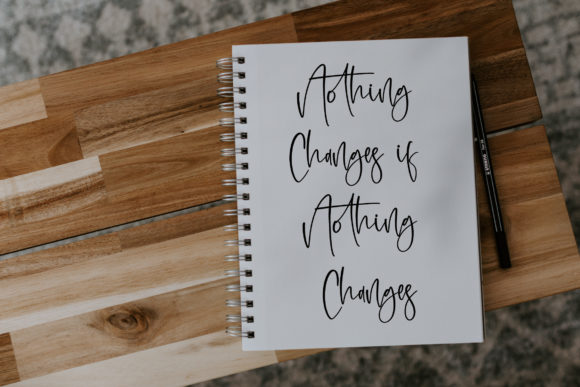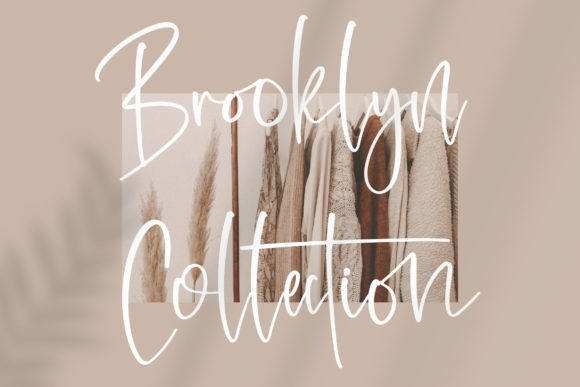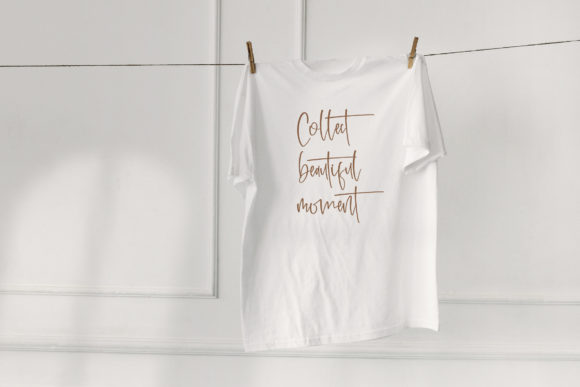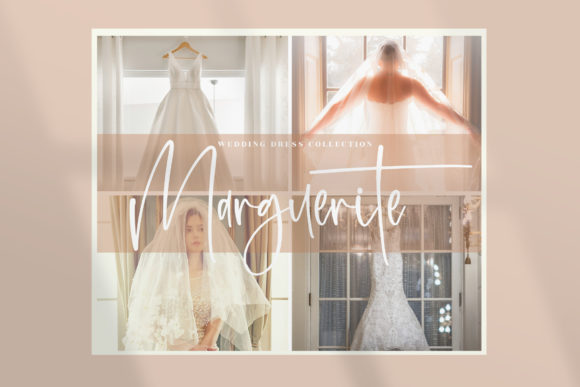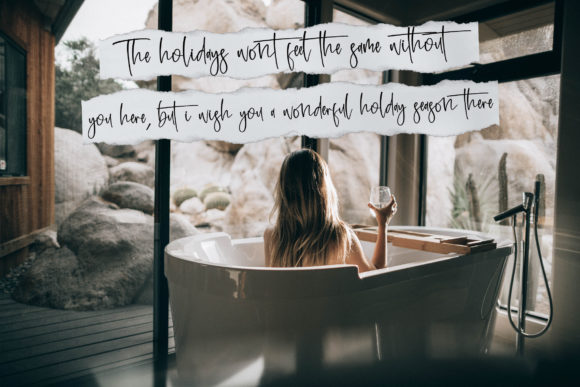
Introduction to Rosalinta Font
Have you ever stumbled upon a font that instantly evokes a sense of romance and whimsy? For designers and creatives, discovering the perfect font can be a game-changer for any project. It’s that magical moment when the words on the page come alive, and the design starts to take shape. For many, that moment arrived with the introduction of the Rosalinta Font – a sweet and delicate handwritten font that has captured the hearts of designers around the world.
Whether you’re working on a wedding invitation, a card, or any other creative project that requires a touch of elegance and sophistication, the Rosalinta Font is an excellent choice. Its dainty and joyful feel makes it perfect for adding a personalized and romantic touch to your designs. And the best part? This beautiful font is available for free download, making it an invaluable design resource for anyone looking to elevate their creative projects.
Rosalinta Font
- High-quality design resource ideal for creative projects, including logos, graphics, and other visual elements.
- Designed with a modern aesthetic, making it perfect for use in contemporary design projects.
Honest Review: Rosalinta Font
I recently came across the Rosalinta Font and decided to give it a try for a creative project. The font is a free download, which is always a great starting point for designers on a budget.
First impressions: the font has a lovely, elegant feel to it. It’s perfect for projects that require a touch of sophistication. The font also comes with a transparent background, which is a nice bonus for designers who want to customize their designs further.
What works well: ✨ The font is highly legible, making it easy to read even at smaller font sizes. It also comes in a range of weights and styles, giving designers plenty of options for their creative project. Additionally, the font is compatible with a variety of design software, including Adobe Creative Cloud.
Overall, I’d say the Rosalinta Font is a solid choice for designers who need a high-quality, elegant font for their creative project. While it has some limitations, it’s a great resource for designers on a budget.
Key features:
- Highly legible
- Range of weights and styles
Tips for Getting the Most Out of Rosalinta Font
Use the Rosalinta Font on a transparent background to create a unique and eye-catching design. Experiment with different font sizes and styles to add visual interest to your creative project.
The Rosalinta Font is ideal for creative projects that require a high-quality, elegant font. Use it for wedding invitations, business cards, or any other design that requires a touch of sophistication.